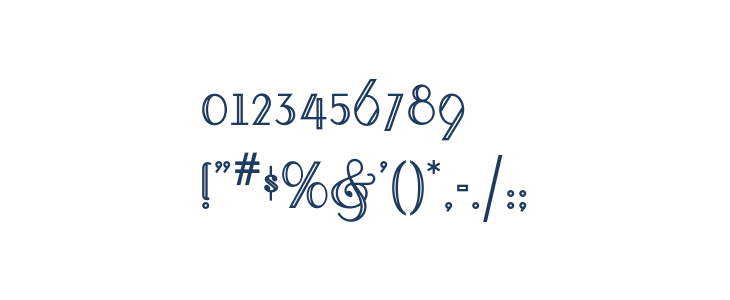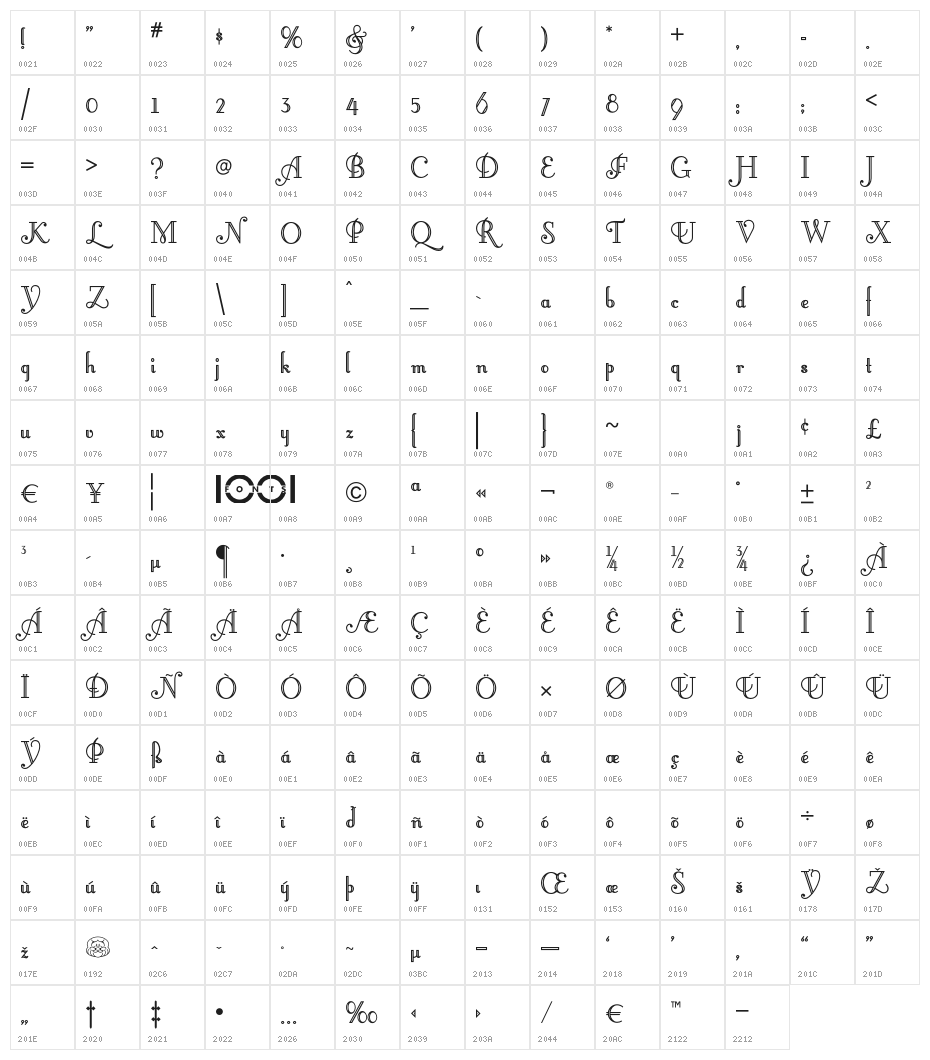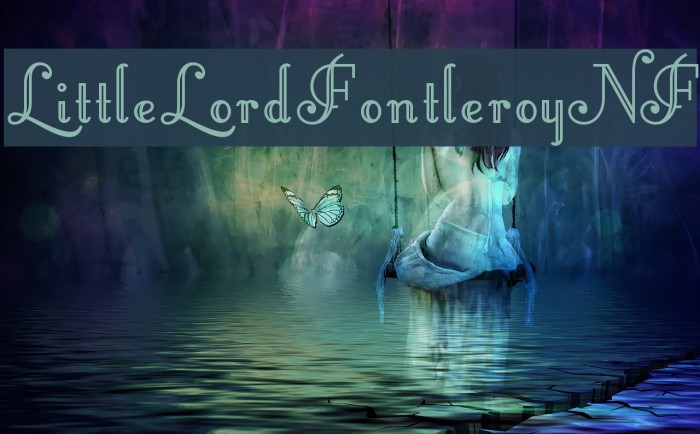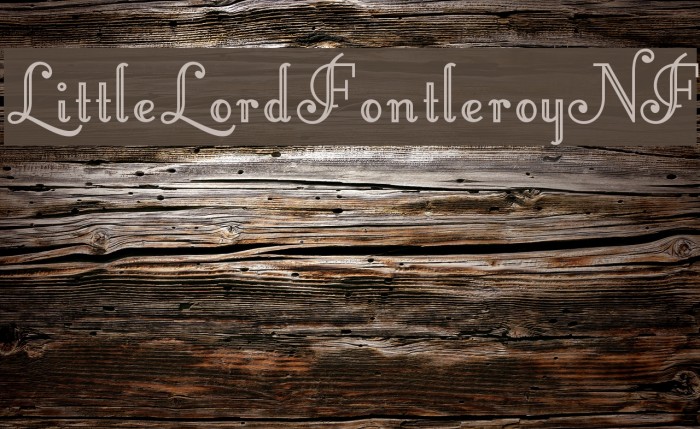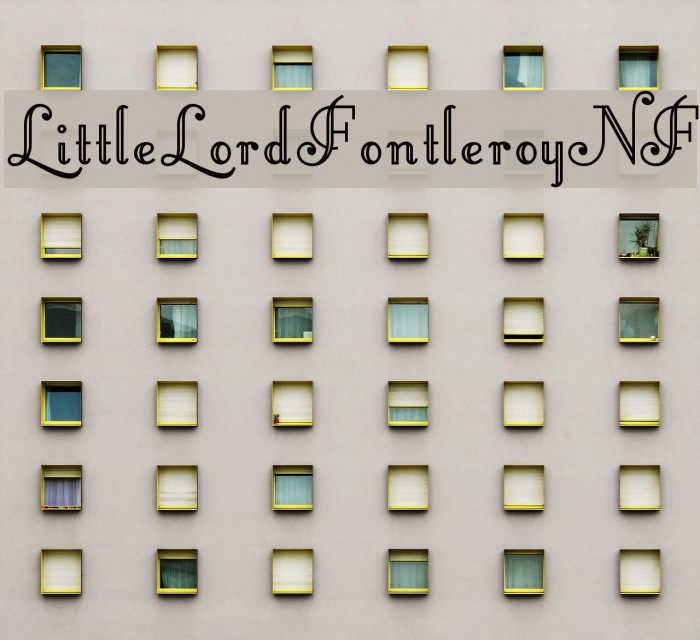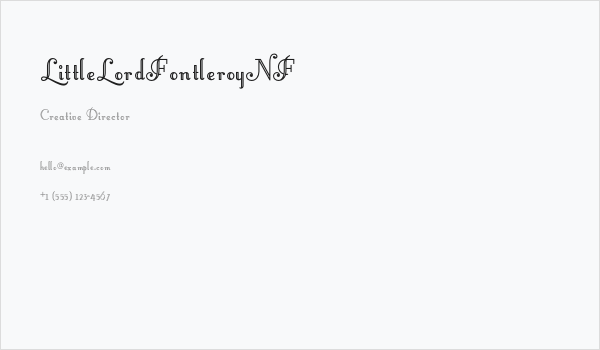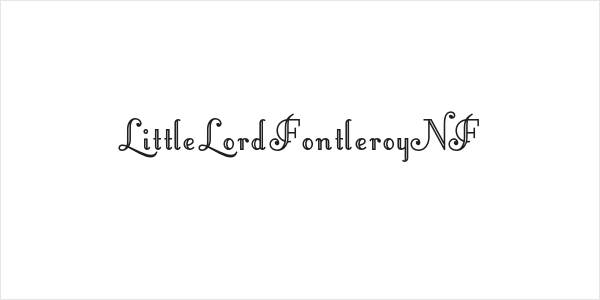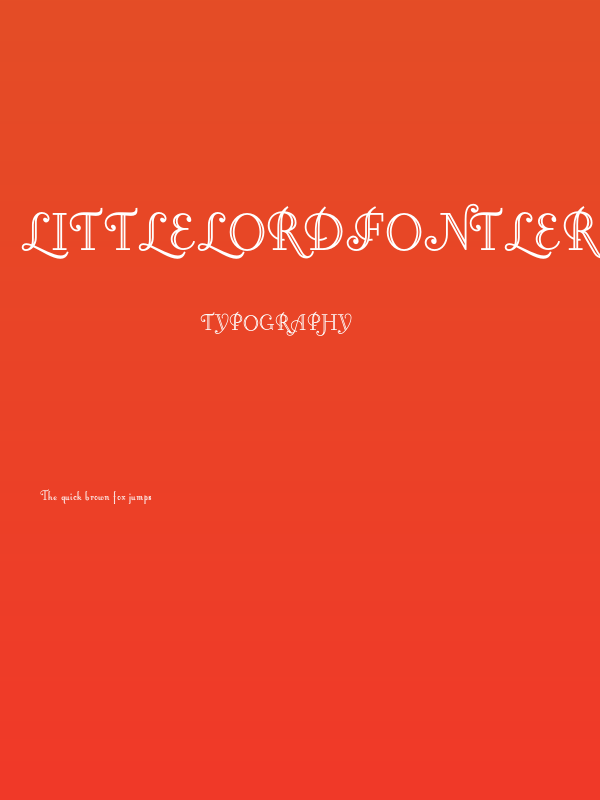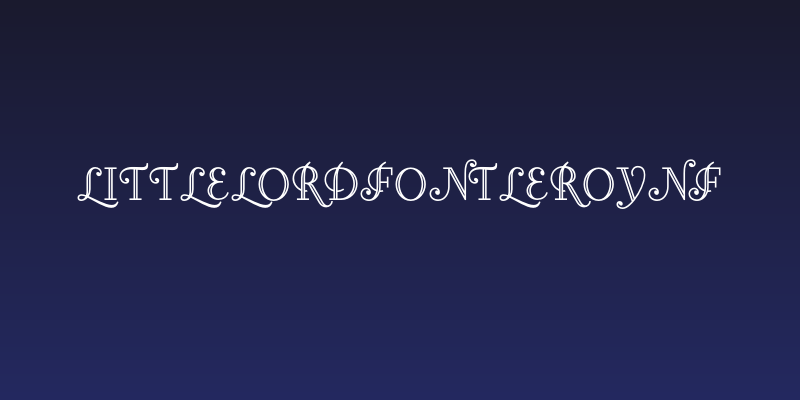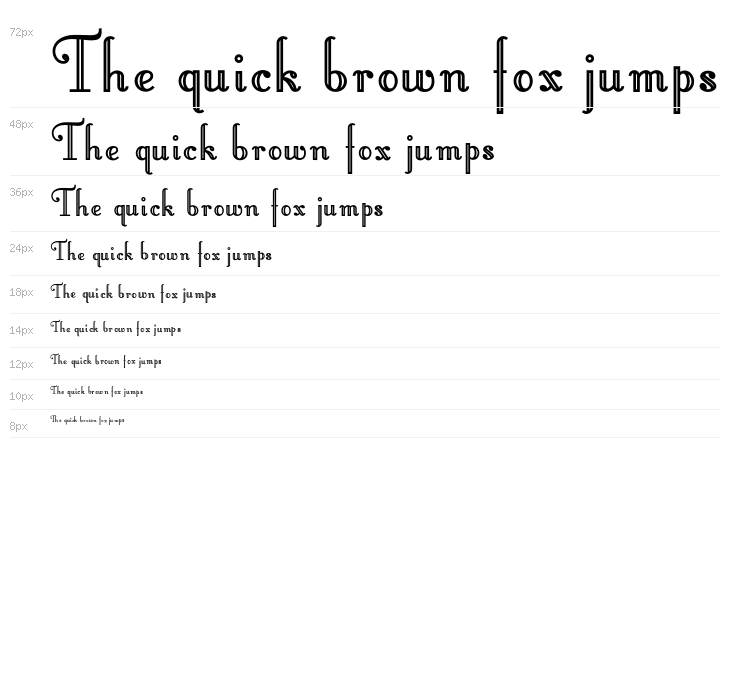
LittleLordFontleroyNF Font
LittleLordFontleroyNF Description
This font features an elegant and decorative style, characterized by its intricate and ornate letterforms. The uppercase letters are particularly elaborate, with swirling embellishments that give a sense of sophistication and flair. The lowercase letters maintain a more subdued yet complementary design, ensuring readability while retaining the decorative theme. The numerals and special characters follow suit, with consistent styling that ties the entire set together. The overall appearance is reminiscent of vintage or classical typography, making it suitable for projects that require a touch of elegance and historical charm.